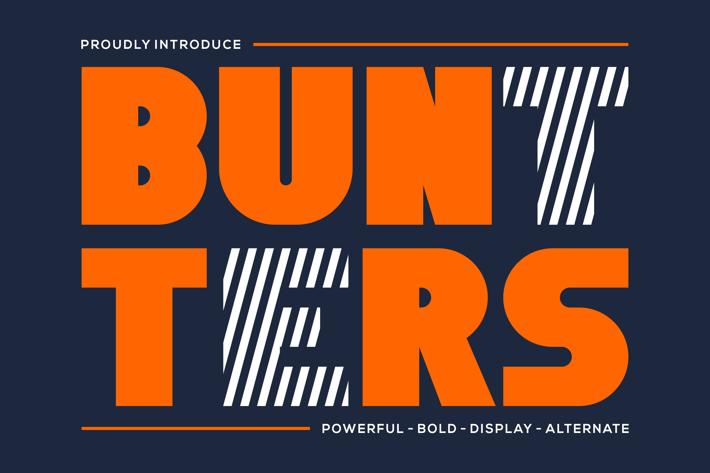
Buntters - Powerful Bold Display Font
Introducing our new product Buntters Font - Powerful Bold Display Font
Buntters Font- Powerful Bold Display Font is a bold and authentic display font. The font is suitable for any branding project like logo,
t-shirt printing, esport, and many more. outstanding in a wide range of contexts.